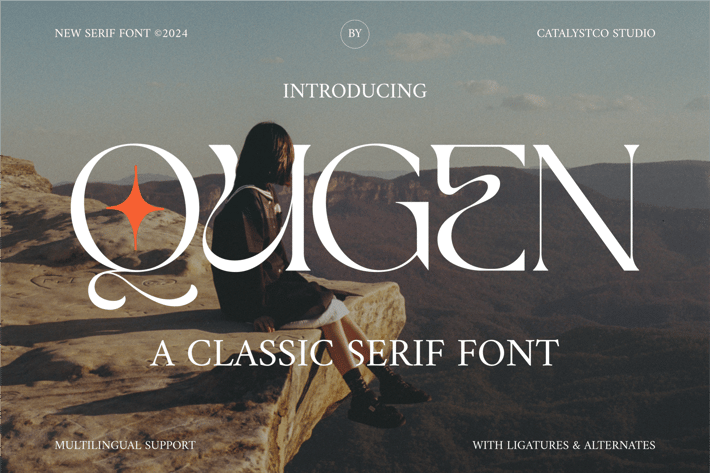
Qugen Luxury Seri Font
Qugen Luxury Seri Font typeface excellent used for the manufacture quote text, logotype, header magazine, and many more.
Ligatures & Alternate
Numeral & Punctuations